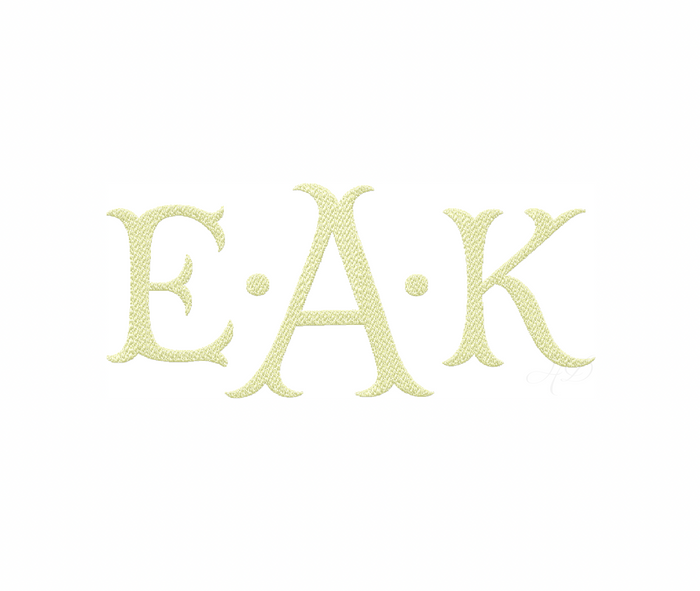
Large Hoop Ashley FILL Embroidery Font for Monogramming
Unlock your creativity with the Large Hoop Ashley FILL Embroidery Font. This single-color fill stitch font is ideal for embroidery machine monogramming, offering uppercase letters A-Z along with an accent dot for added flair. Available in sizes ranging from 3" to 6", this versatile font suits any project.